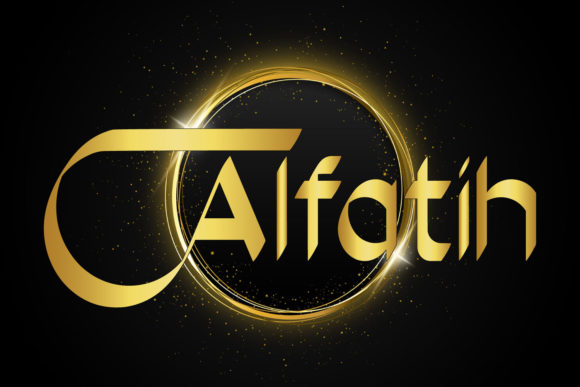
Introducing Alfatih Font, the exquisite display font that captures the essence of calligraphy in a modern and sophisticated manner. This font is a masterpiece inspired by the beauty of traditional calligraphy, carefully crafted to provide a timeless elegance to your designs.
With its meticulously designed characters, Alfatih Font exudes a classic charm that is perfect for adding a touch of sophistication to your projects. Whether you're creating calligraphy book writings, designing Quran covers, or crafting captivating film titles, Alfatih Font is the perfect choice for adding a touch of artistic flair.
Step into the realm of creativity and let Alfatih Font guide you as you embark on a journey of visual expression. Allow your imagination to soar as you explore the endless possibilities that this font presents. Create t-shirt designs that speak to your individuality, magazine titles that command attention, and web designs that leave a lasting impression.
Alfatih Font is not just a font; it's a gateway to a world of artistic exploration. Let it be your muse as you craft stunning posters that captivate the senses, book titles that intrigue and inspire, and logos that leave a lasting mark on the minds of your audience.
So why settle for ordinary fonts when you can embrace the extraordinary with Alfatih Font? This font is a testament to the power of creativity and the beauty of expression. Download Alfatih Font today and unleash your artistic potential, leaving a trail of awe-inspiring designs wherever you go.